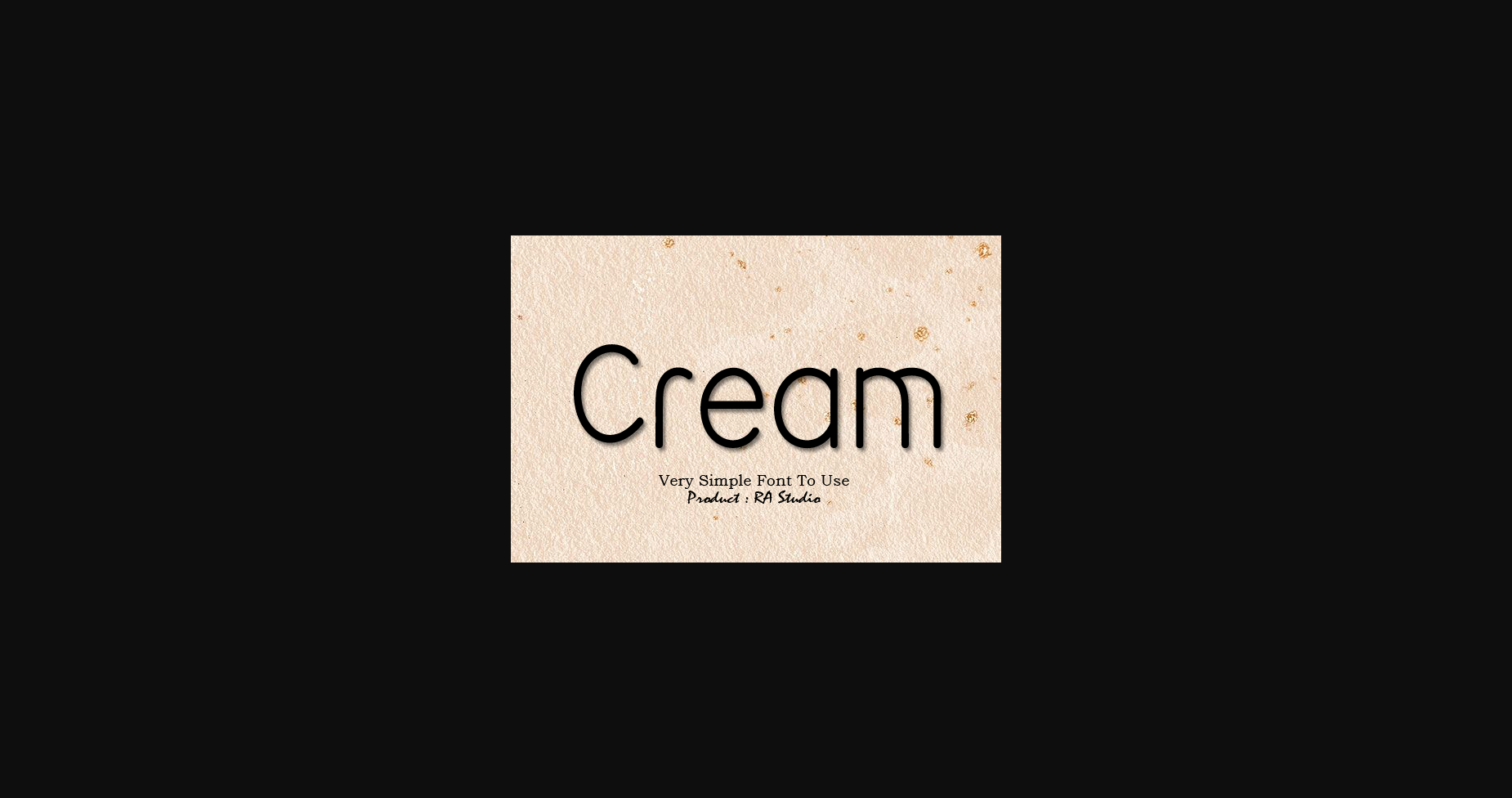
About Cream Font
Cream is a dainty and clean sans serif font.
Sweet and joyful, this font will be ideal for writing wedding invitations, cards or any other design that may need a romantic, personalized touch!